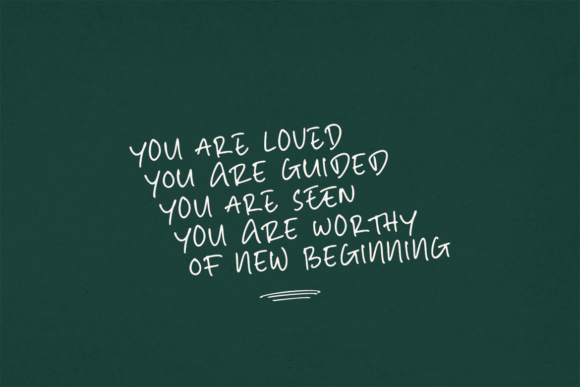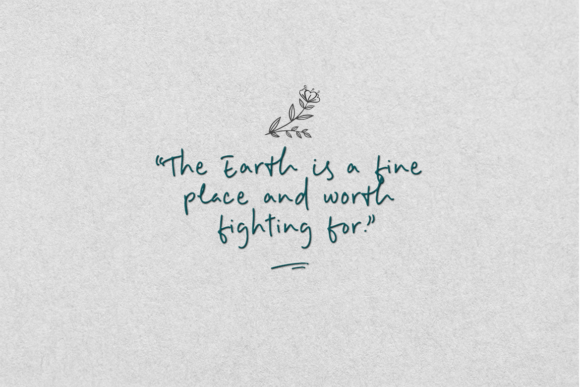
Kindness Things Font
db-ku.com - Script & Handwritten -- Kindness Things is a chic handwritten font. It features a unique, natural, and catchy vibe, and it is suitable for design projects, such as logos, branding, posters, quotes, party invitations, and much more!